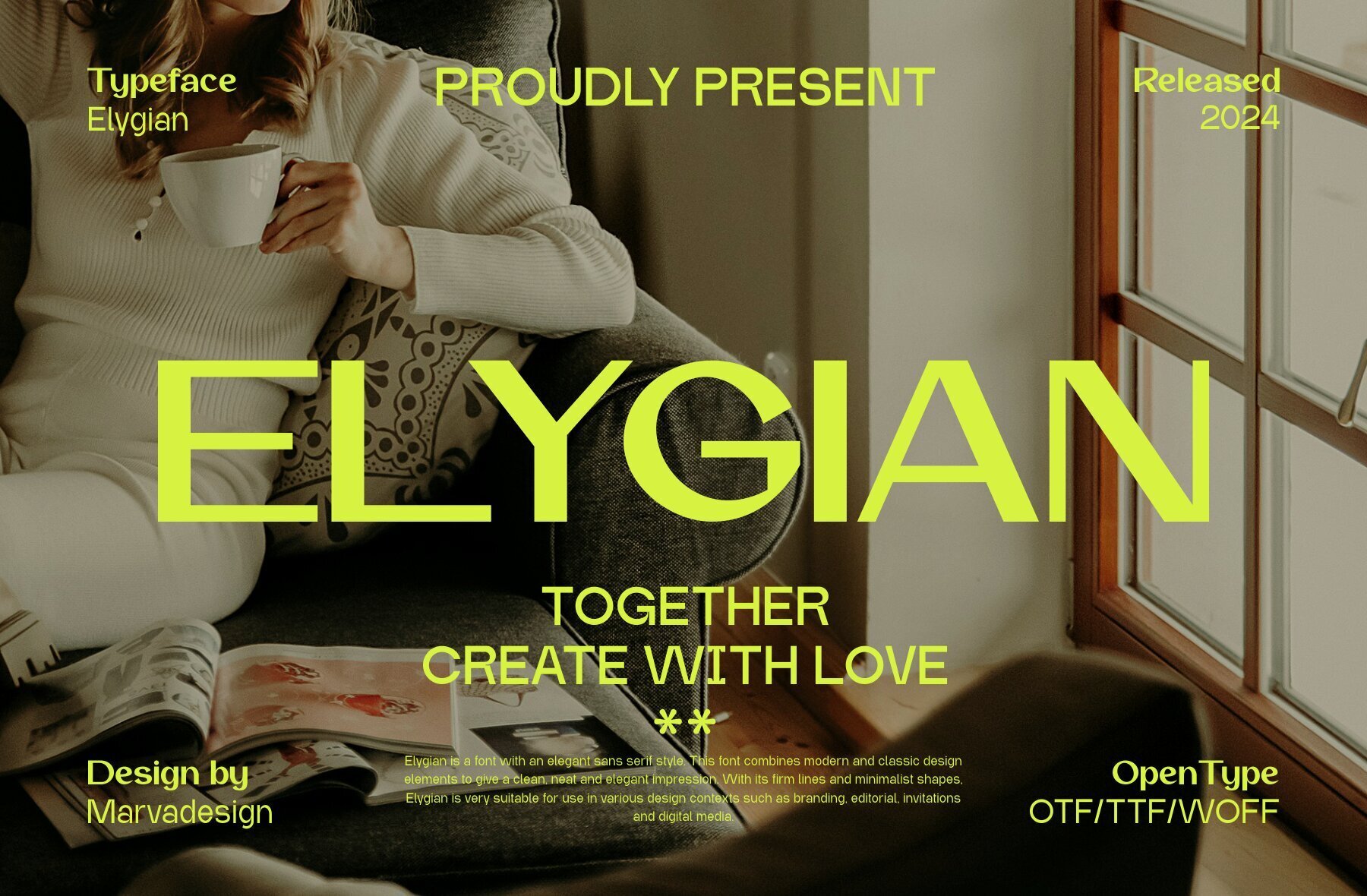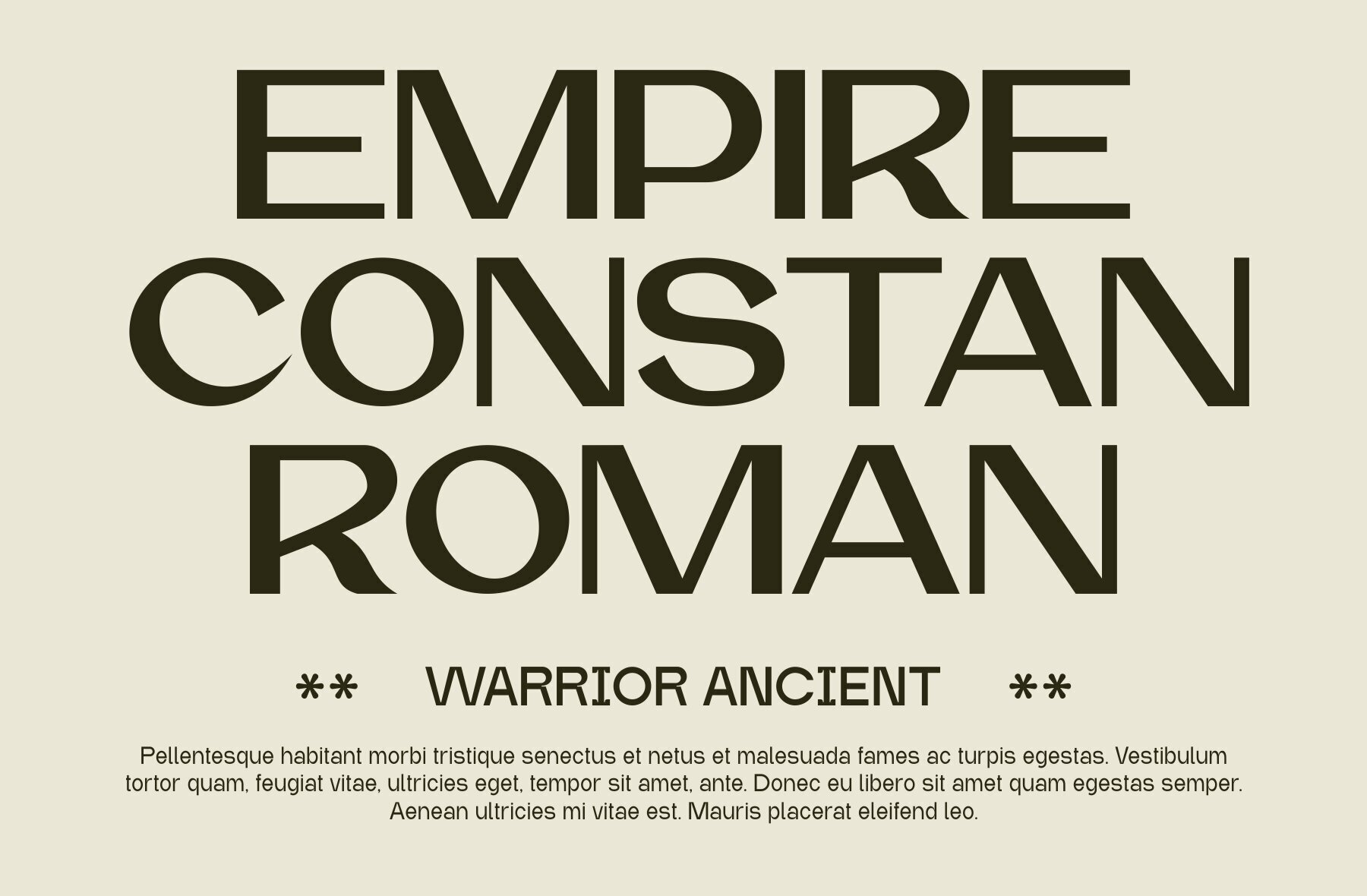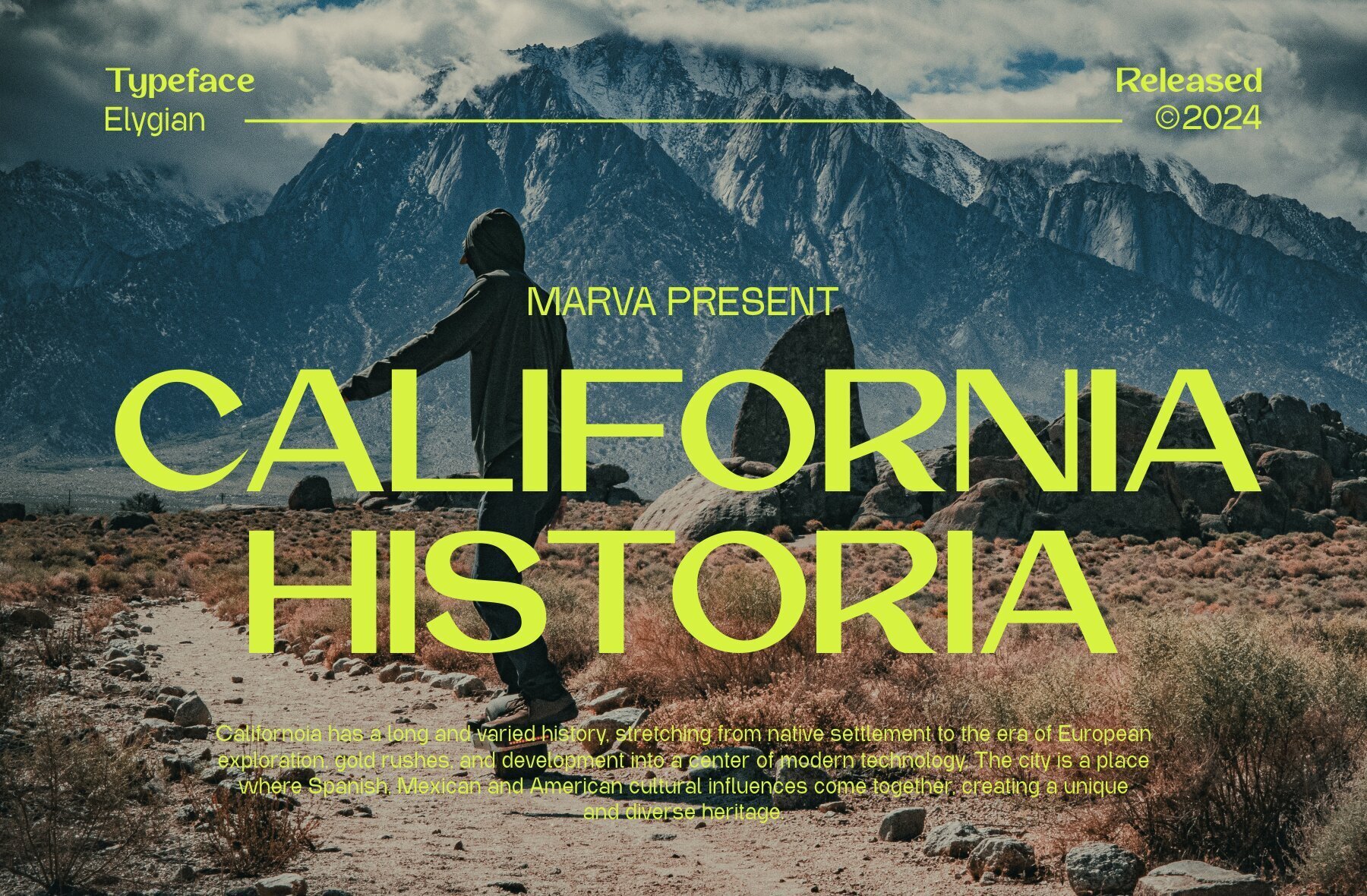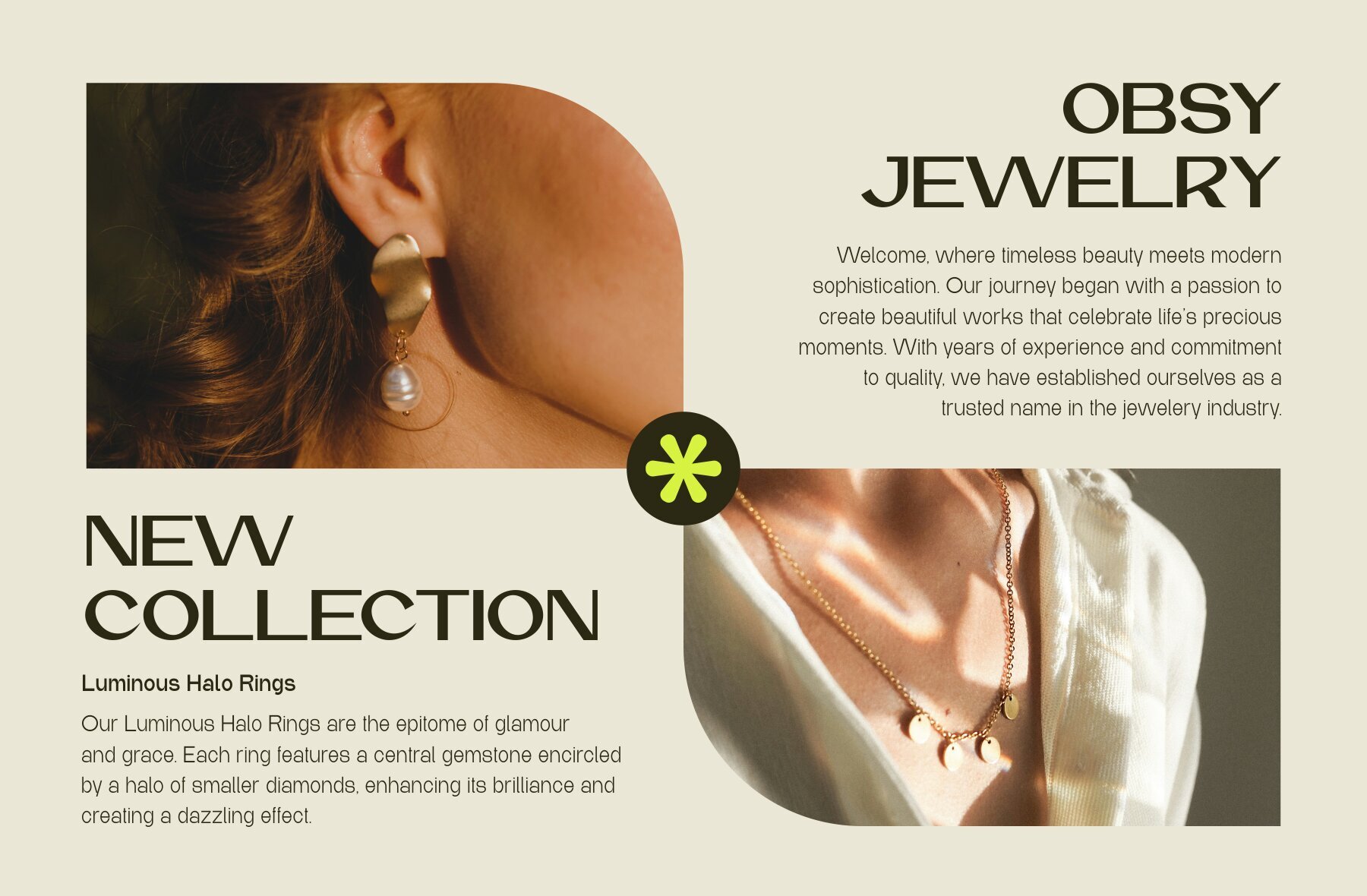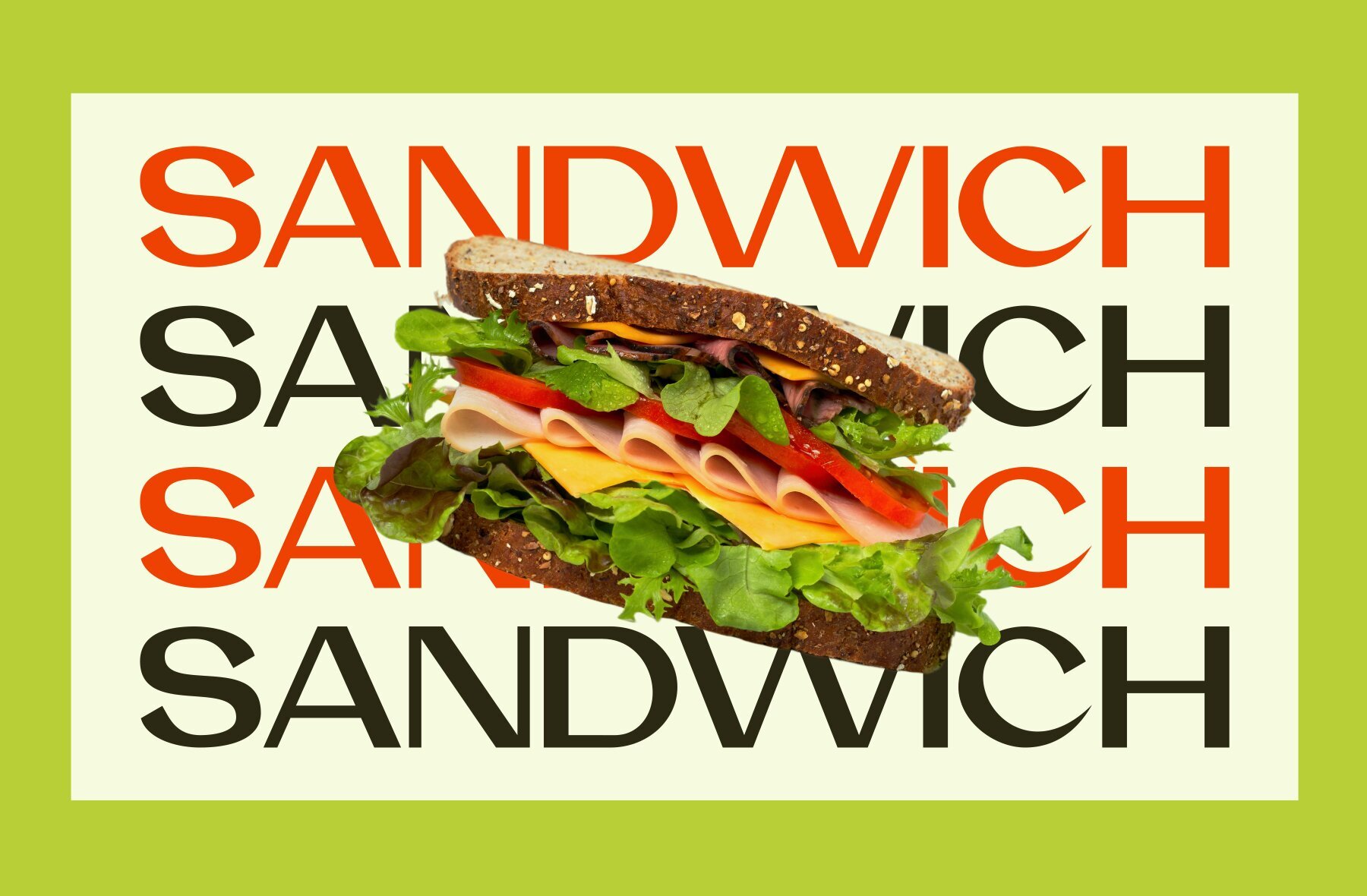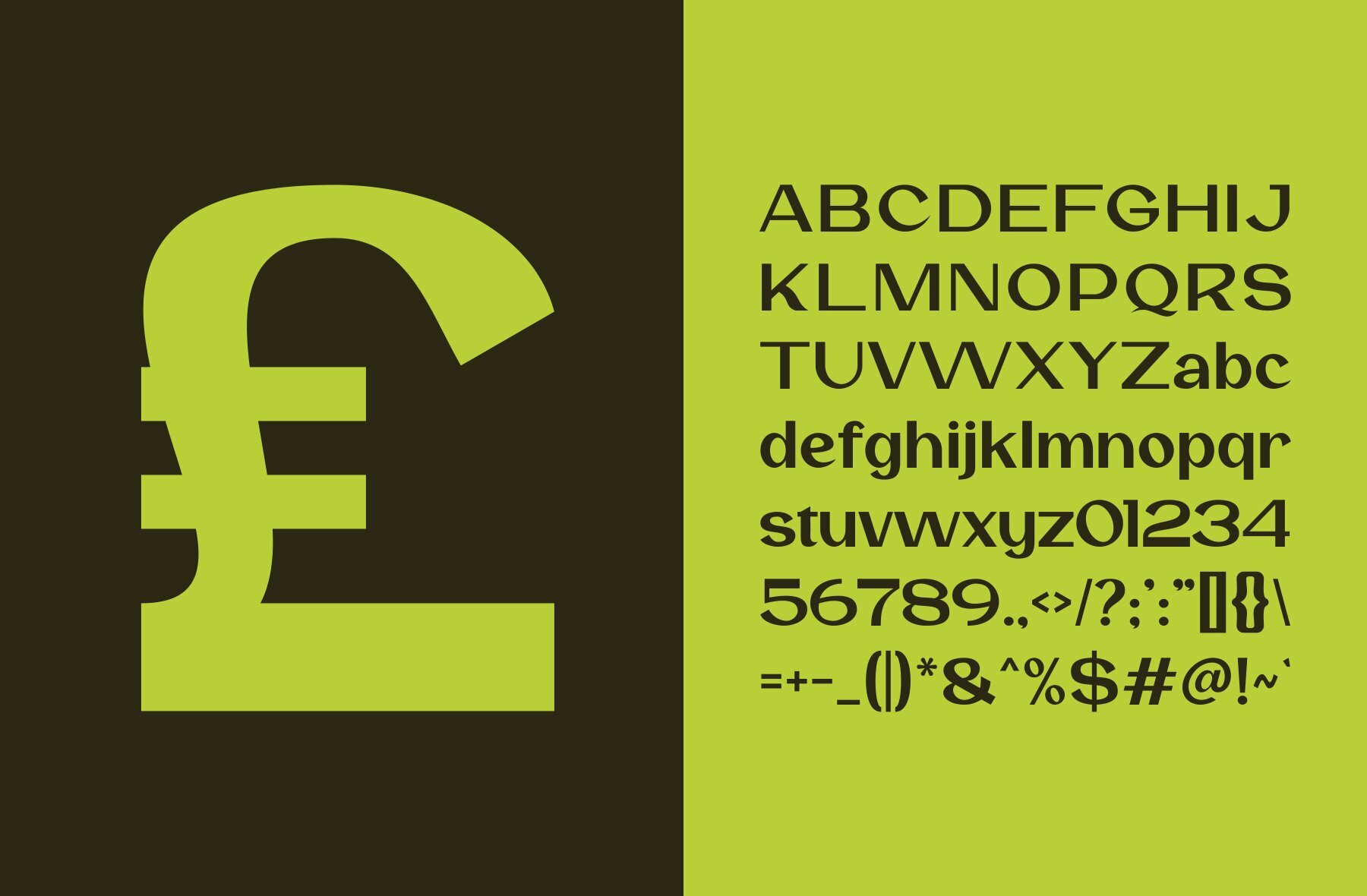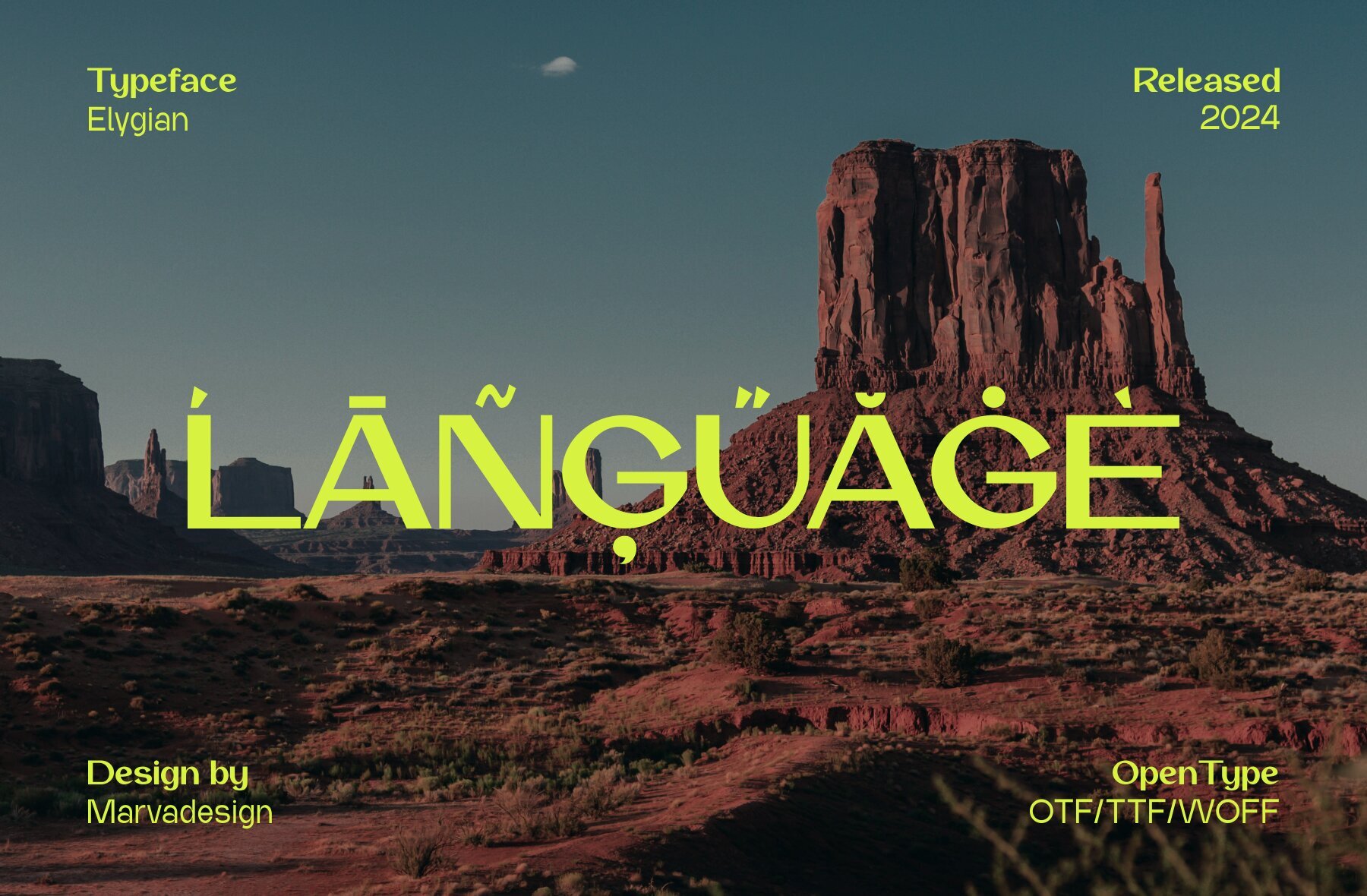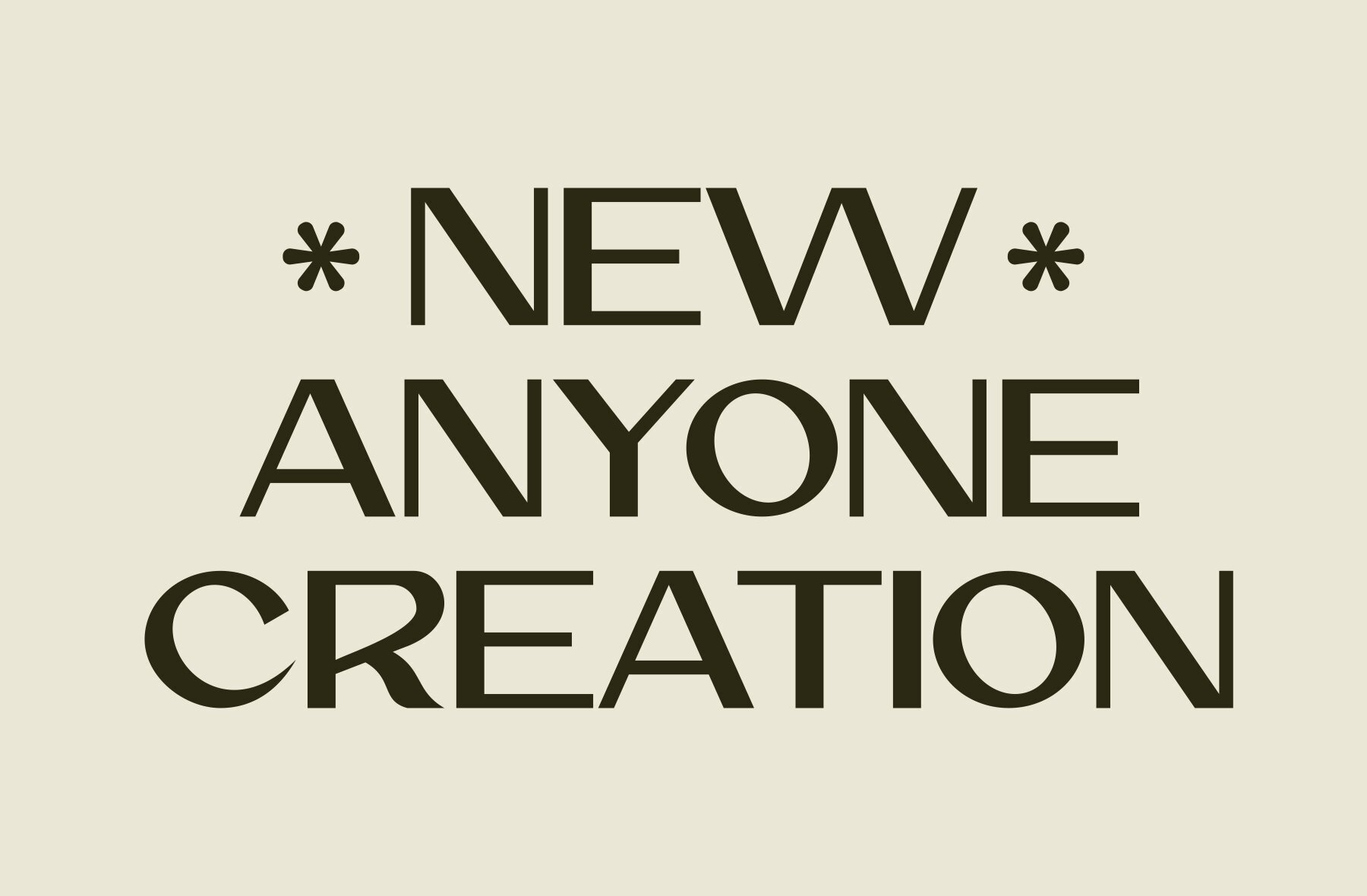
Elygian Font
Elygian Regular
Elygian is an elegant sans serif font that blends modern and classic design elements, offering a clean, neat aesthetic. Its firm lines and minimalist shapes make it an ideal choice for various design contexts, including branding, editorial work, invitations, and digital media.
This font features both uppercase and lowercase characters, as well as multilingual support, ensuring versatility and a broad range of application. Perfect for projects where clarity and sophistication are key, Elygian delivers a professional and refined look to any design.